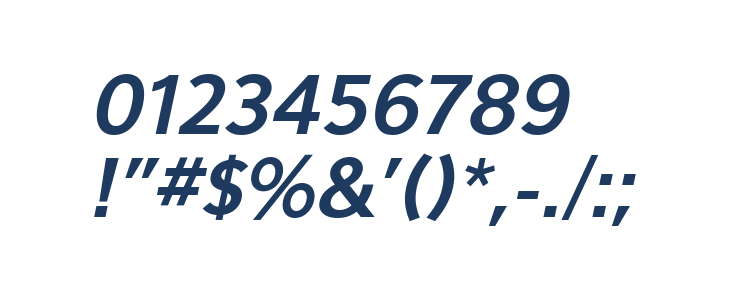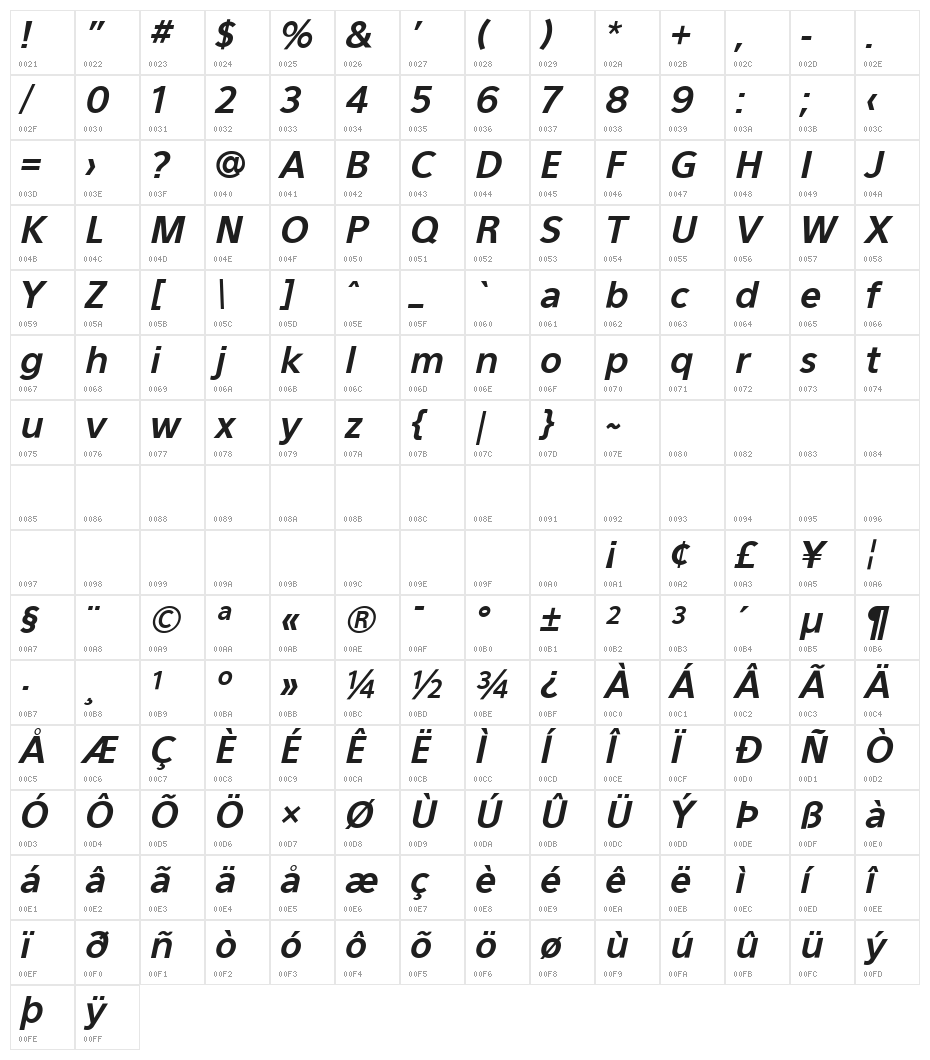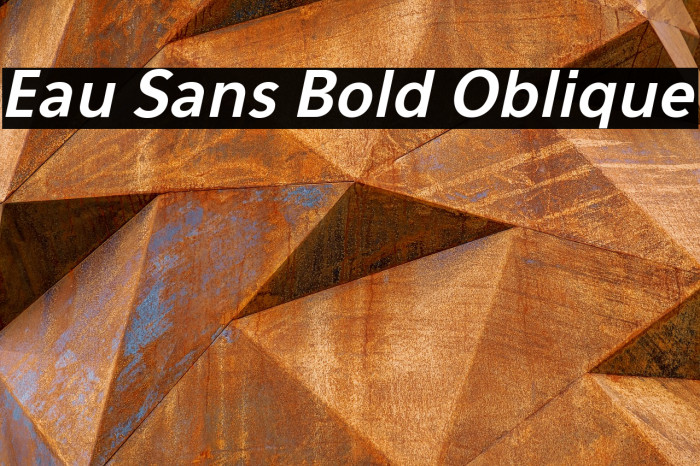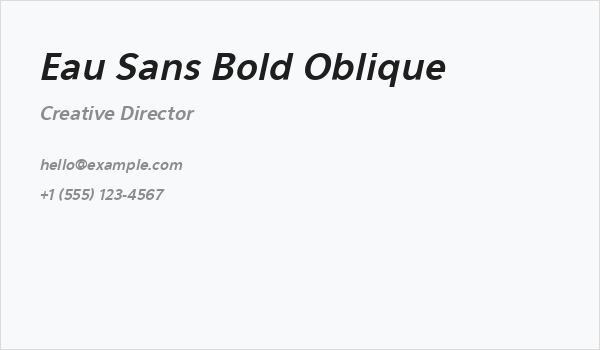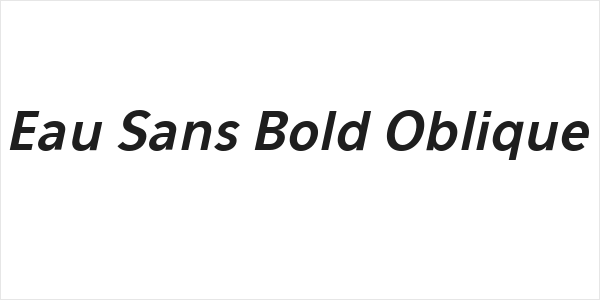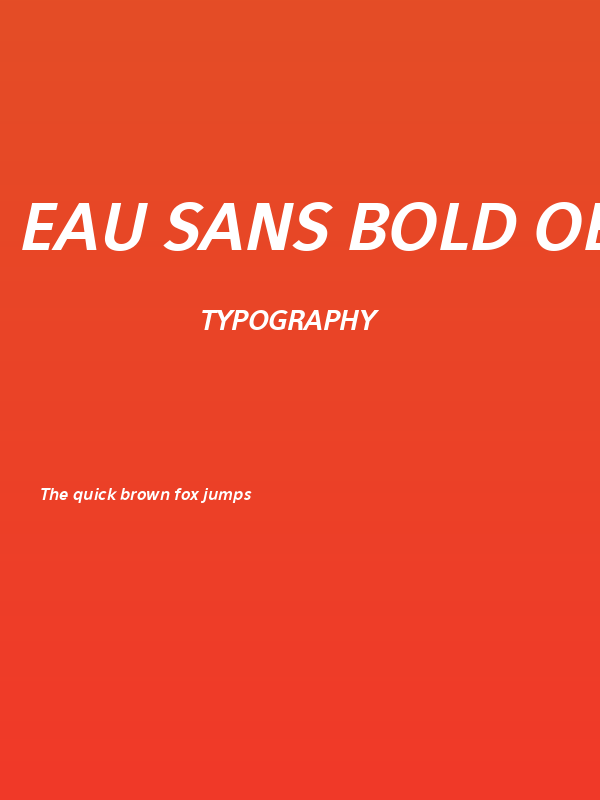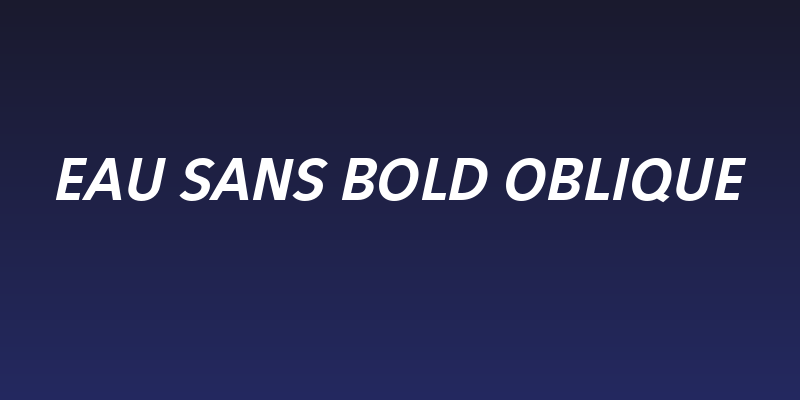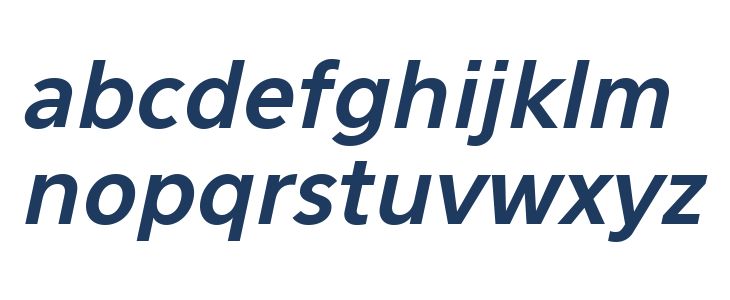
Eau Sans Bold Oblique Font
Eau Sans Bold Oblique Description
This typeface presents a sleek and modern aesthetic with its clean lines and slightly oblique stance. The characters are bold, offering a strong presence that commands attention. The sans-serif design ensures readability and versatility, making it suitable for a variety of applications. The uniform stroke width contributes to a harmonious and balanced appearance, while the italicized angle adds a dynamic touch. The font maintains a consistent character spacing, providing a cohesive look across different text sizes. Its contemporary style is ideal for projects that require a professional yet approachable feel.